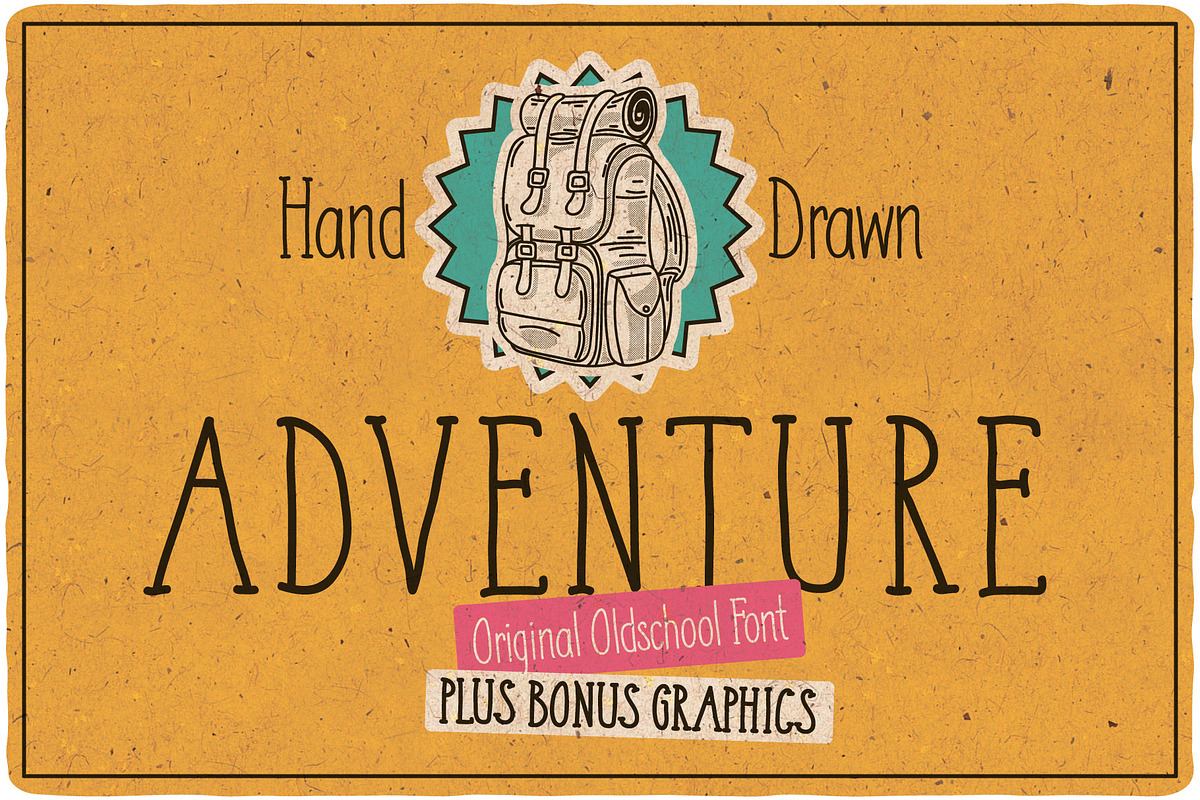
Adventure Typeface Free Download
Adventure Typeface Free Download is a bold, rugged typeface designed for explorers at heart. With its strong lines and outdoorsy vibe, this font is perfect for travel blogs, camping gear branding, adventure-themed posters, nature-inspired logos, and lifestyle content that thrives on wanderlust. It captures the thrill of the wild and the spirit of the journey.
Using the Adventure Typeface Free Download instantly gives your designs a sense of movement, energy, and grit. Whether you're crafting a hiking guide cover, designing rustic apparel, or creating content for outdoor lovers, this font adds authenticity and visual impact that connects with nature-driven audiences.